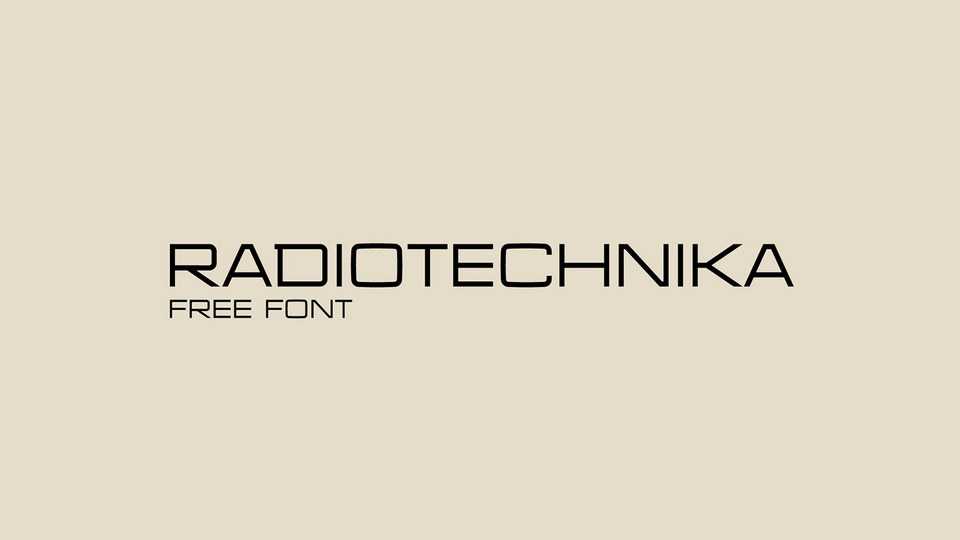
Download Radioteсhnika typeface, a heading typeface based on the original soviet letterings have been used for a different UI solutions in industrial design.
Designer: Serezha Zhigarev